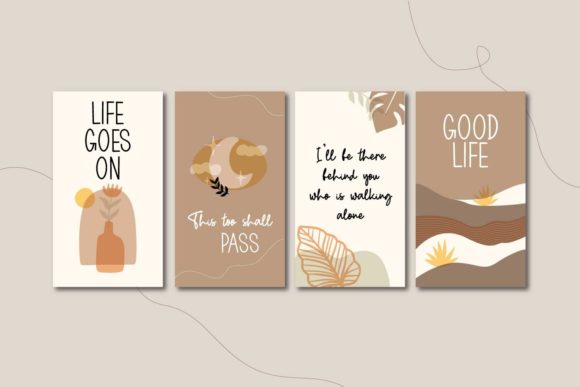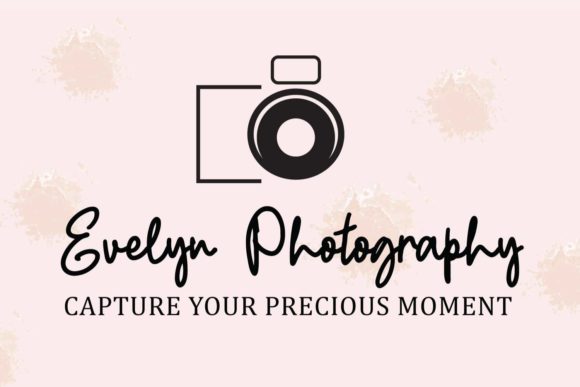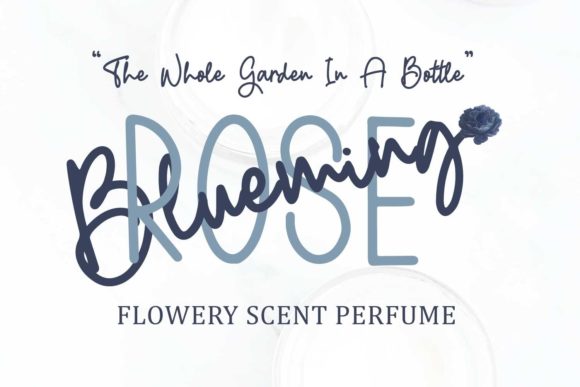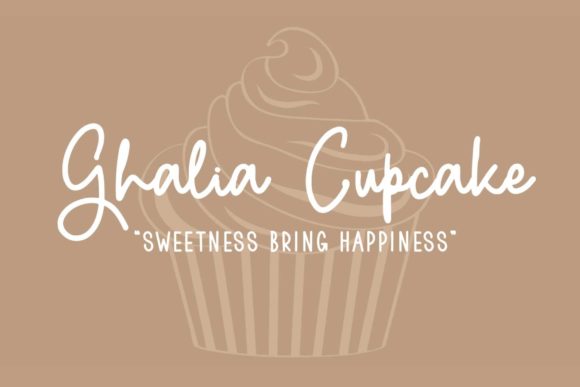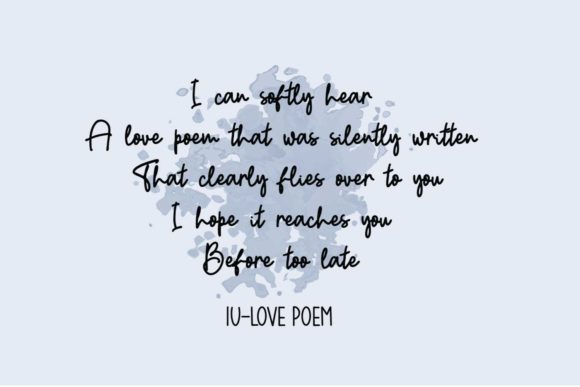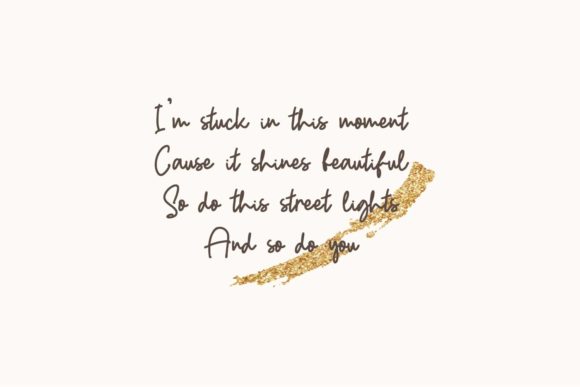
Introduction to Poem Harmony Font
Have you ever stumbled upon a design project where everything seems to be falling into place, but something’s still missing that special touch? That’s where the magic of the Poem Harmony Font comes in. This enchanting duo font is a perfect blend of sans serif and script styles, crafted to elevate any creative project to new heights.
Key Features of Poem Harmony Font
- High-quality design resource ideal for creative projects, with a beautiful and elegant style.
- Transparent background allows for easy layering and customization in graphic design projects.
- Designed with a focus on readability, making it perfect for use in body text, headings, and titles.
- Unique characteristics include a poetic and harmonious feel, making it a great choice for creative projects that require a touch of elegance.
Honest Review: Poem Harmony Font
- ✨ Elegant and refined aesthetic that adds a touch of sophistication to any design
- ✨ Wide range of applications, from headings to body text
- ✨ Transparent background allows for easy integration into design projects
- ⚠️ Limited font variations, which may limit its versatility
- ⚠️ May not be suitable for extremely bold or playful designs
Overall, I’m impressed with the Poem Harmony Font. It’s a well-designed, high-quality font that’s perfect for designers looking for a elegant and refined aesthetic. While it may not be the most versatile font, it’s a great addition to any design resource library.
Tips for Getting the Most Out of Poem Harmony Font